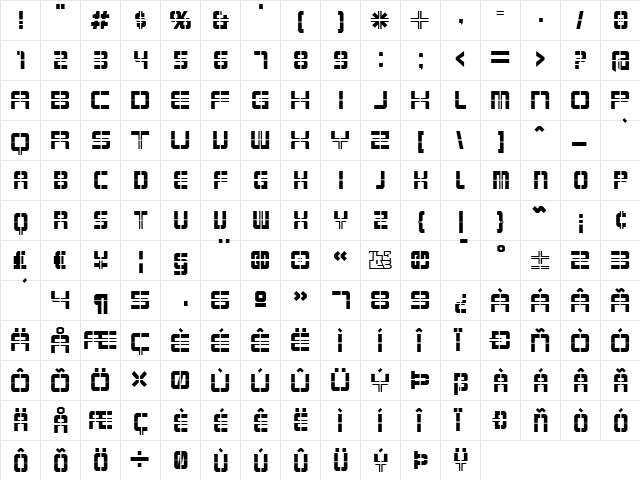
Karnivore Krate Regular
Design Context for Karnivore Krate Typeface
Karnivore Krate is a composed and adaptable typeface that performs quietly and consistently across a wide range of design contexts.